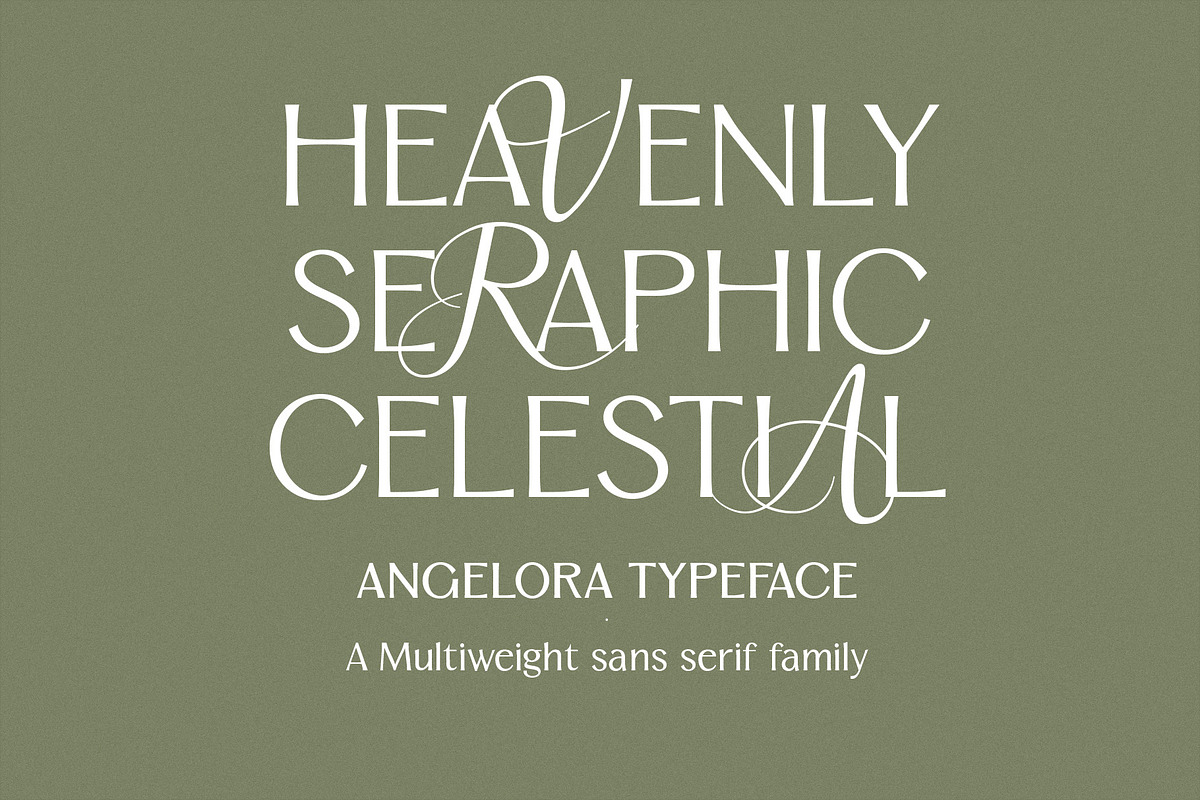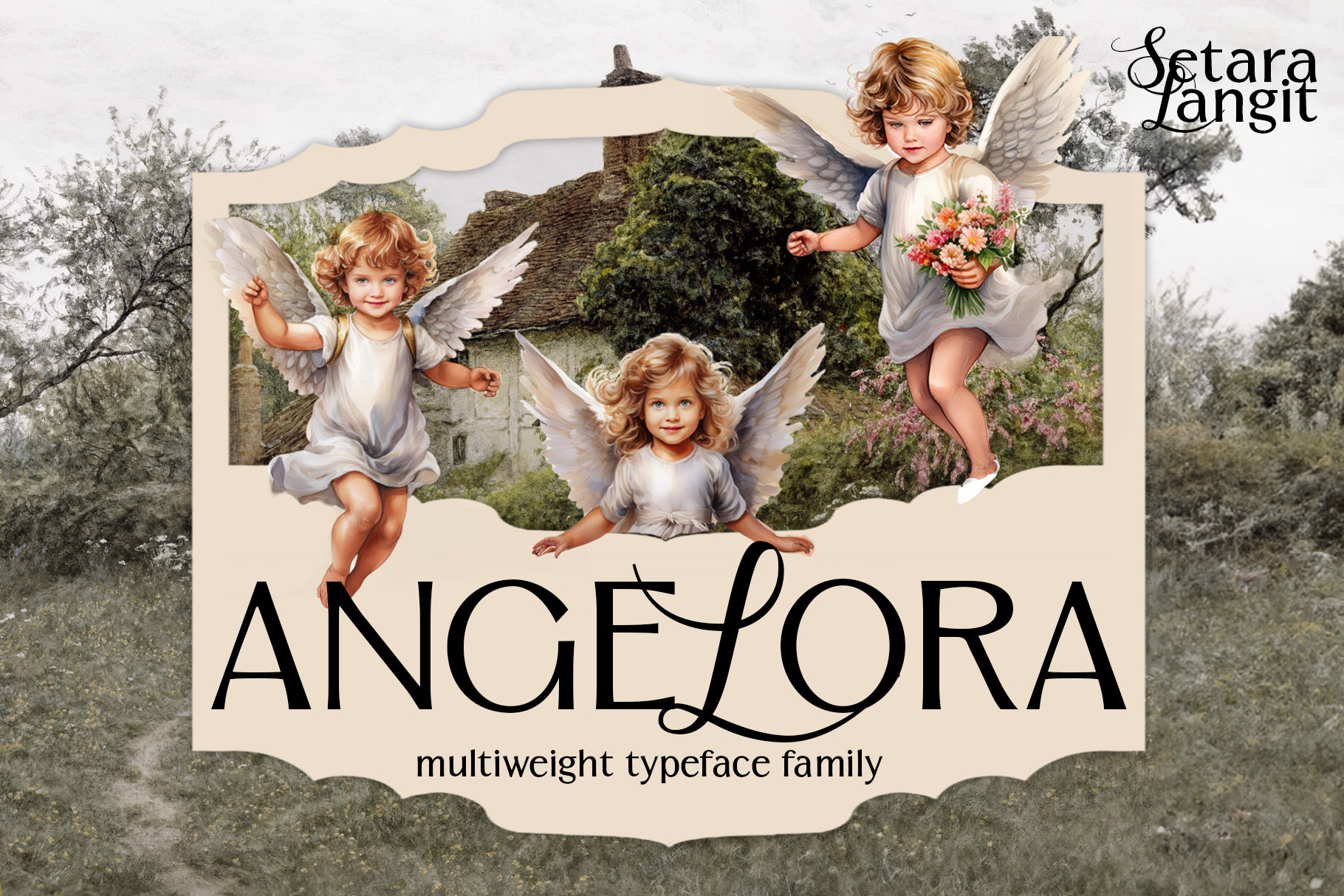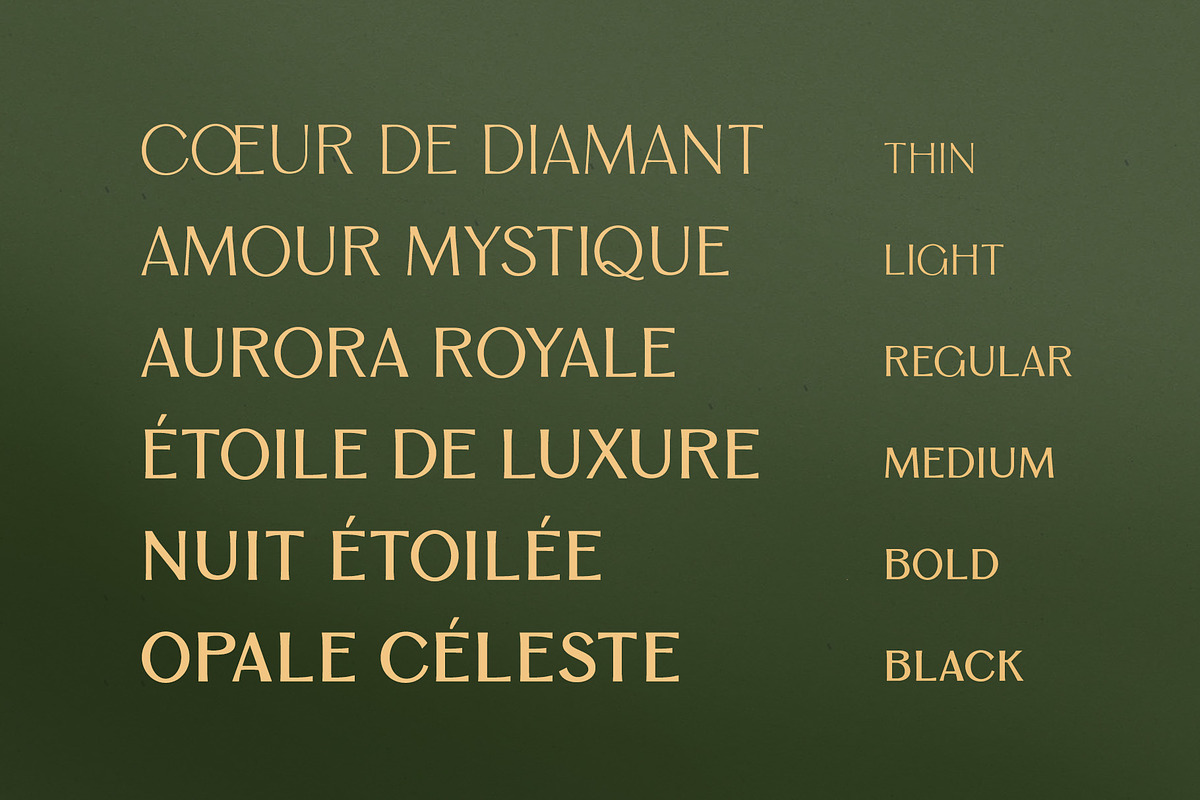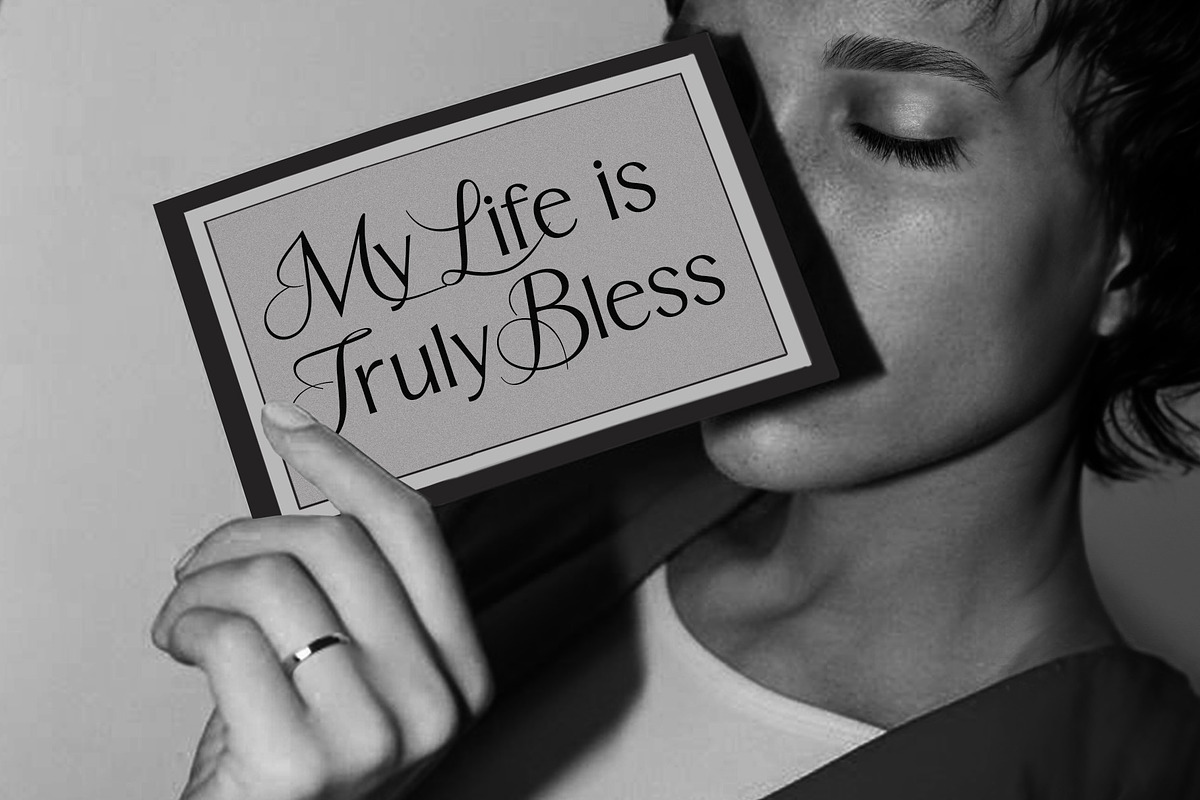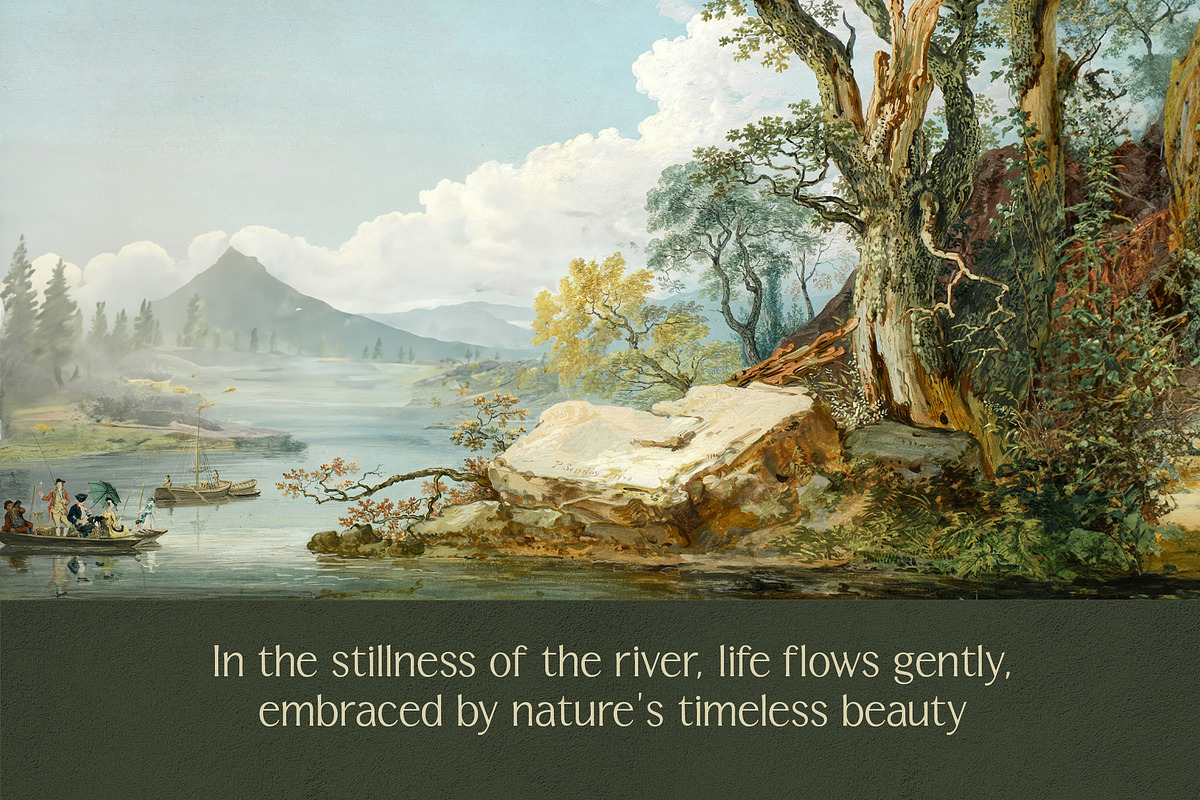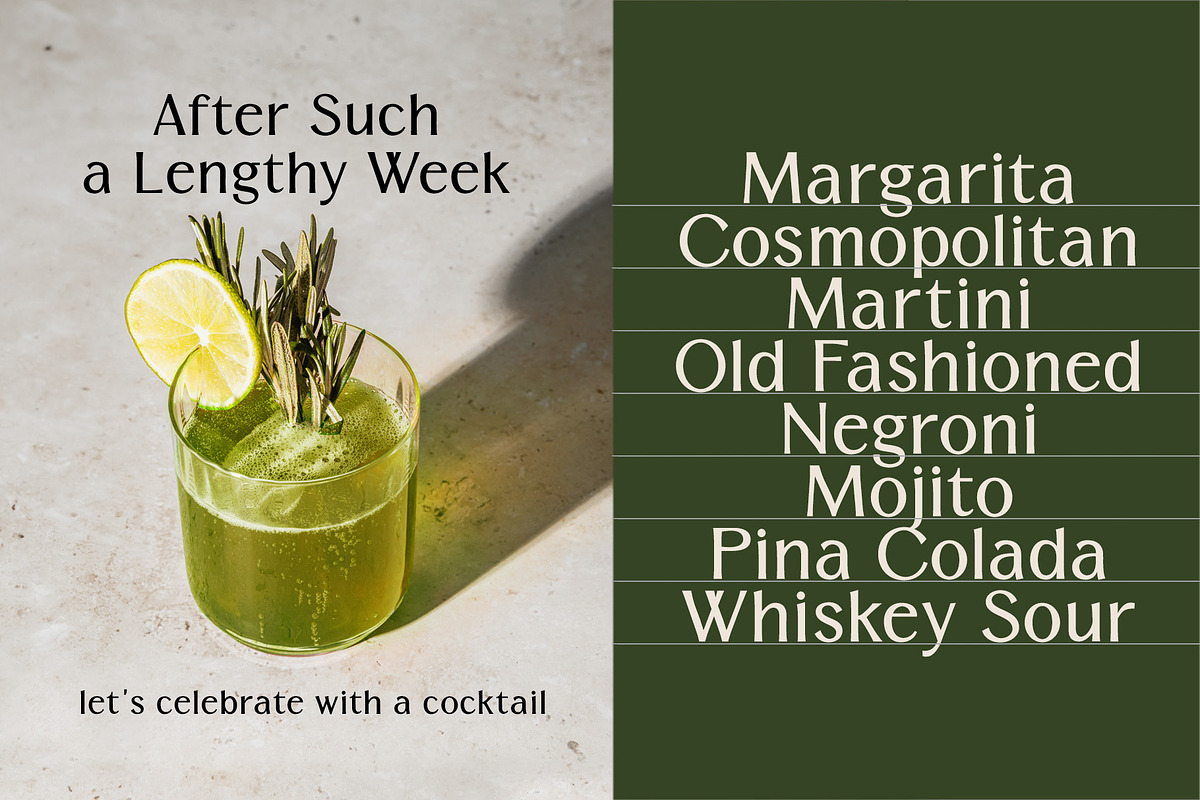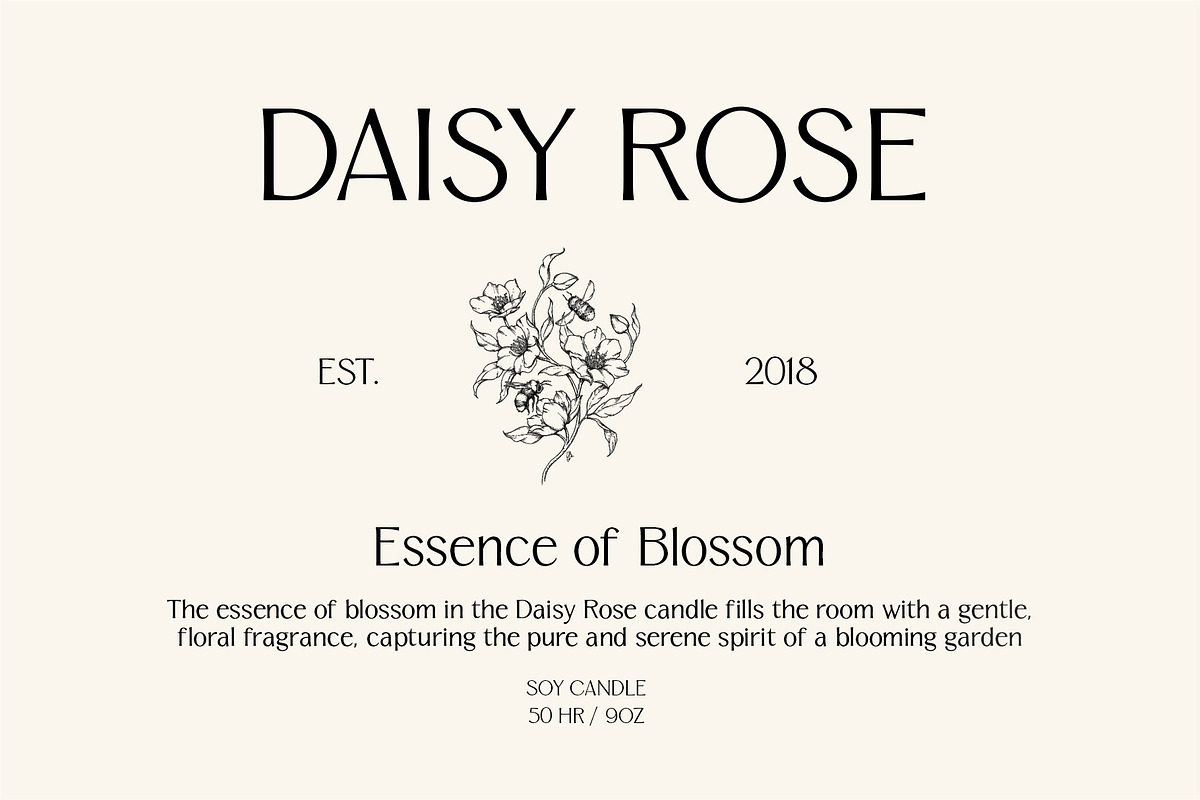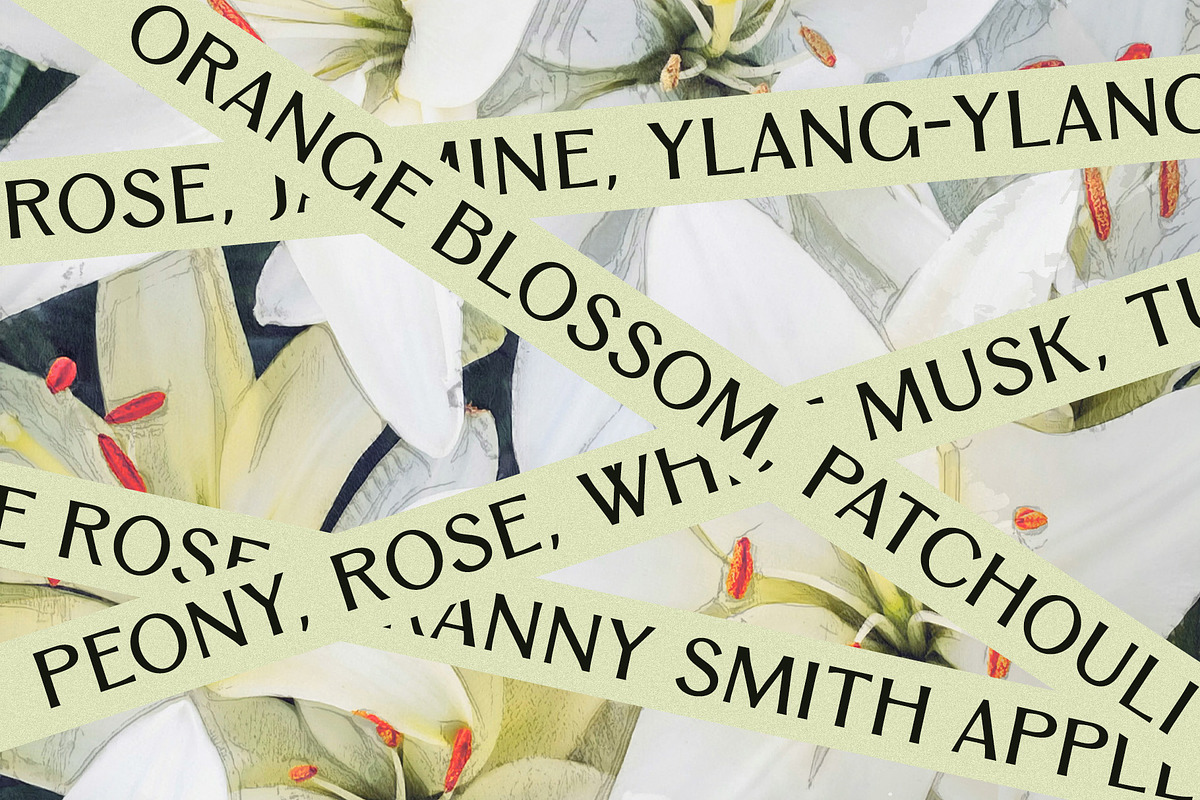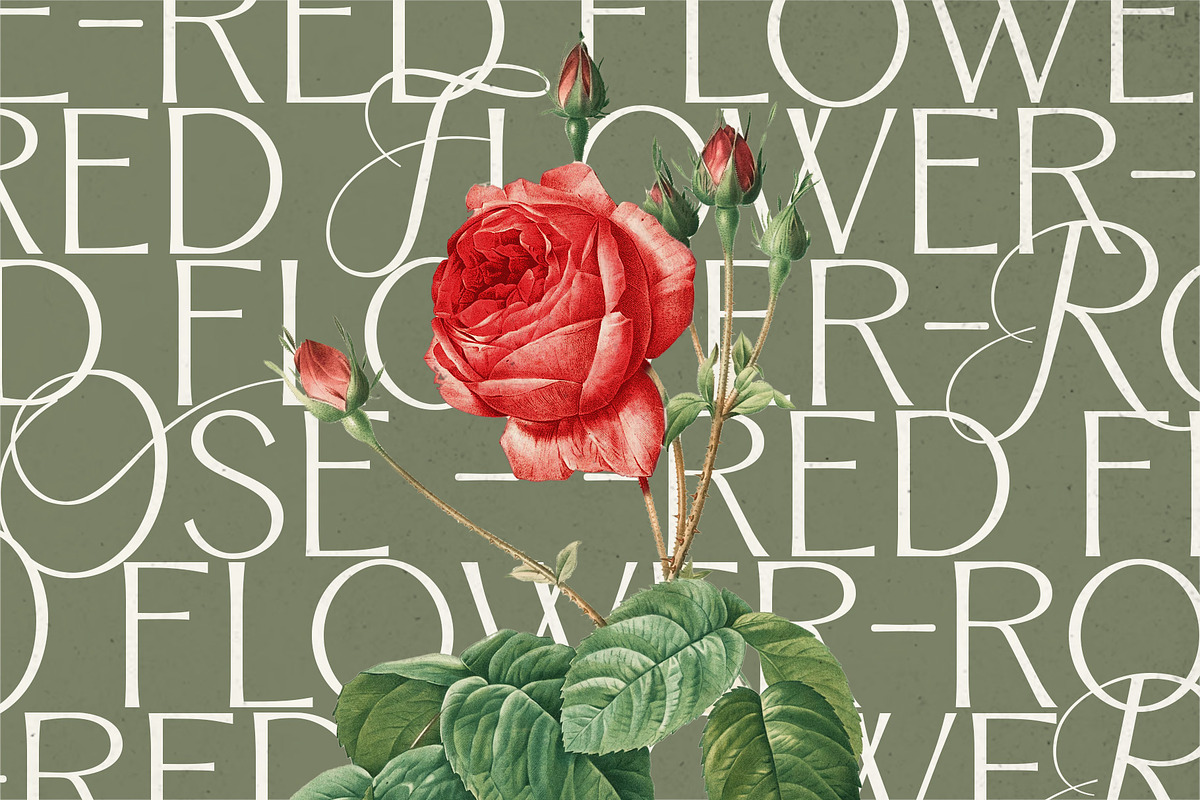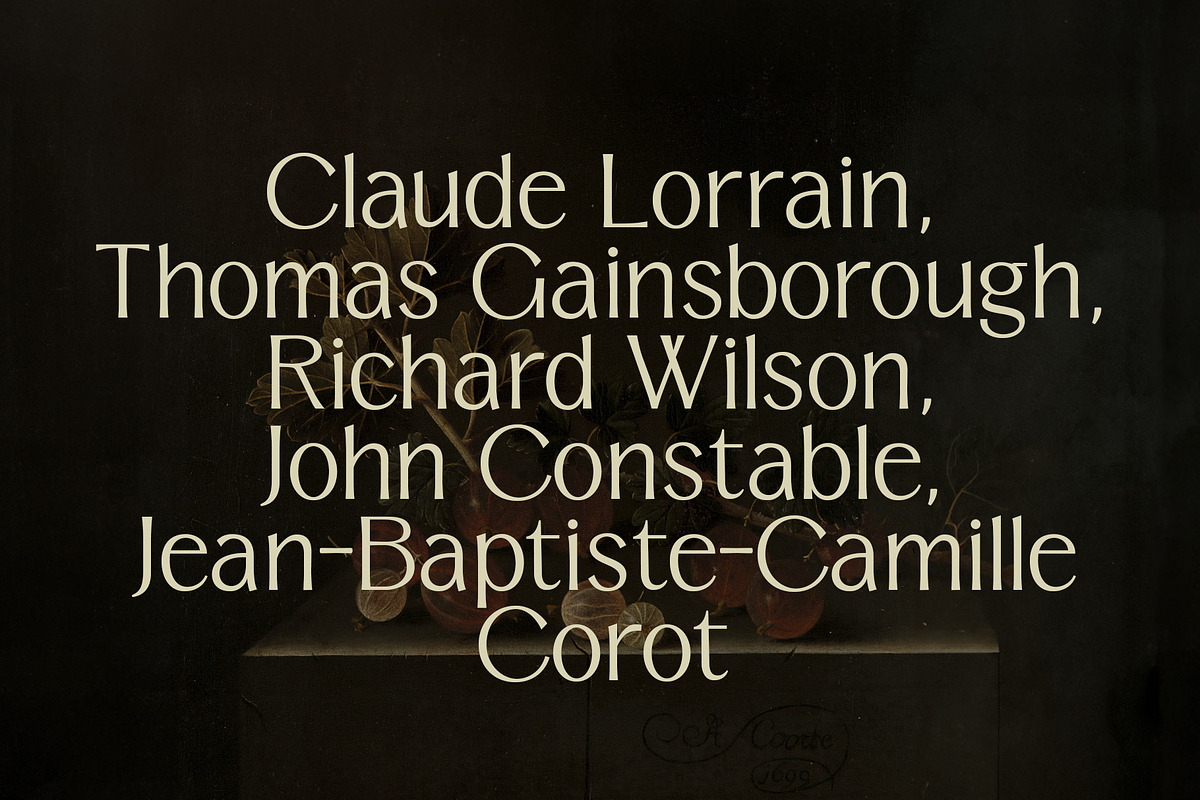
Angelora Typeface
Hi, this is Angelora, the epitome of elegance and versatility crafted by Setara Langit Creative Studio. Imagine a typeface that captures the ethereal beauty of the heavens, blending celestial grace with modern sophistication. Angelora is not just a font—it's a statement. Its flowing curves and refined serifs evoke a sense of timeless luxury, making it the perfect choice for projects that demand both beauty and impact.
Angelora is an exquisite fusion of calligraphy and sans-serif sophistication. This unique typeface marries the fluid elegance of hand-drawn script with the clean precision of a modern sans-serif, creating a harmonious blend that is both timeless and contemporary.
Whether you're designing a high-end fashion magazine, crafting a memorable wedding invitation, or branding a luxury product, Angelora will elevate your work to the divine. Its multi-weight family gives you the flexibility to play with contrast and hierarchy, ensuring your designs are not just seen, but felt.
With Angelora, your text doesn’t just communicate—it enchants. Embrace the celestial, embrace the seraphic, and let your creativity soar.